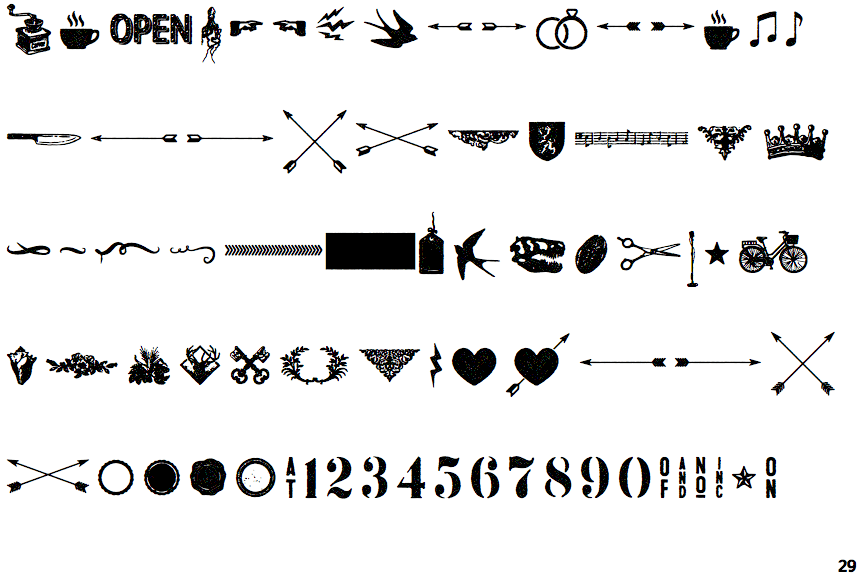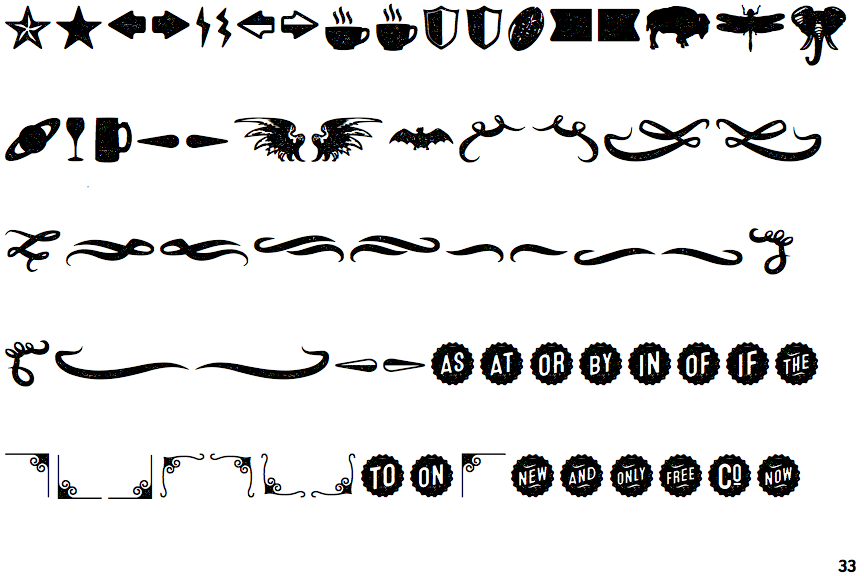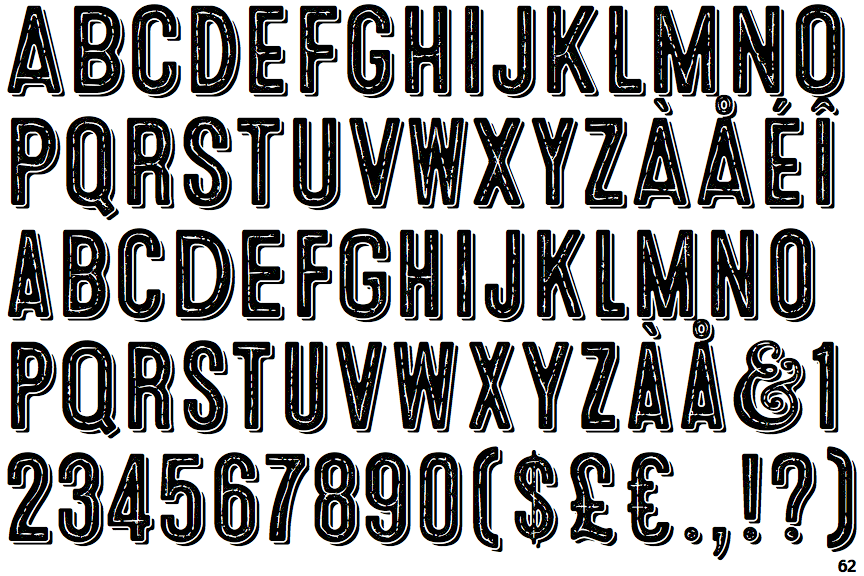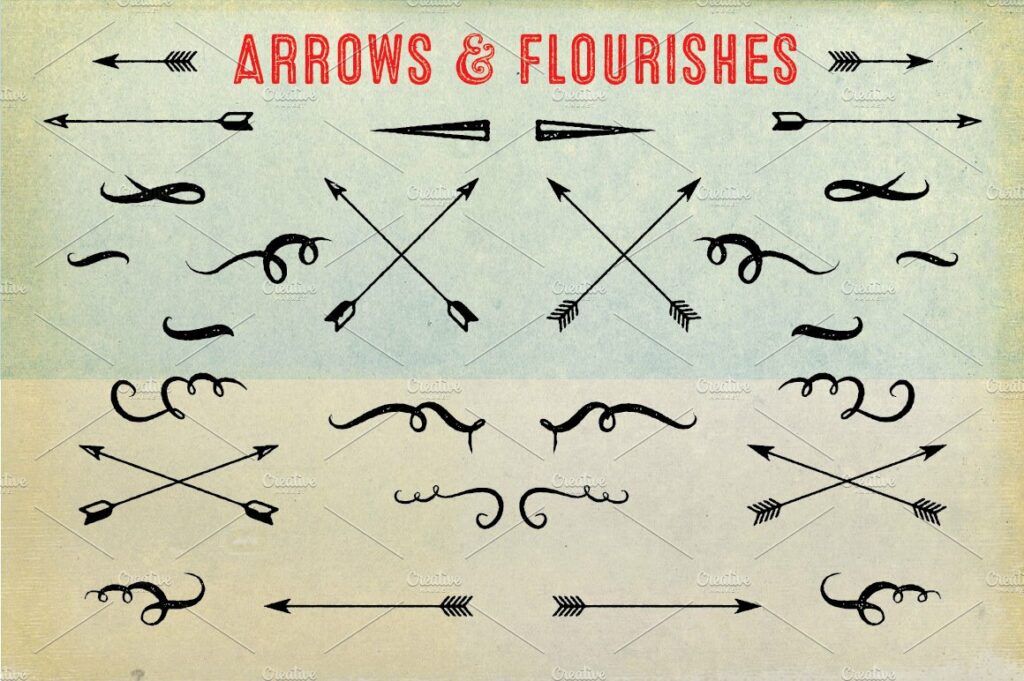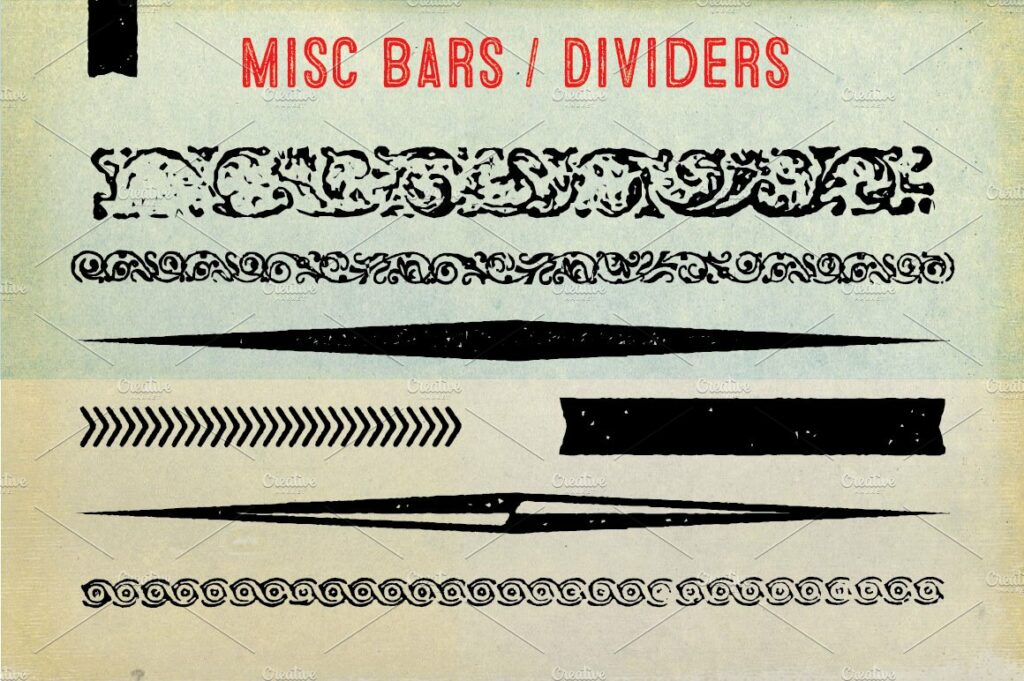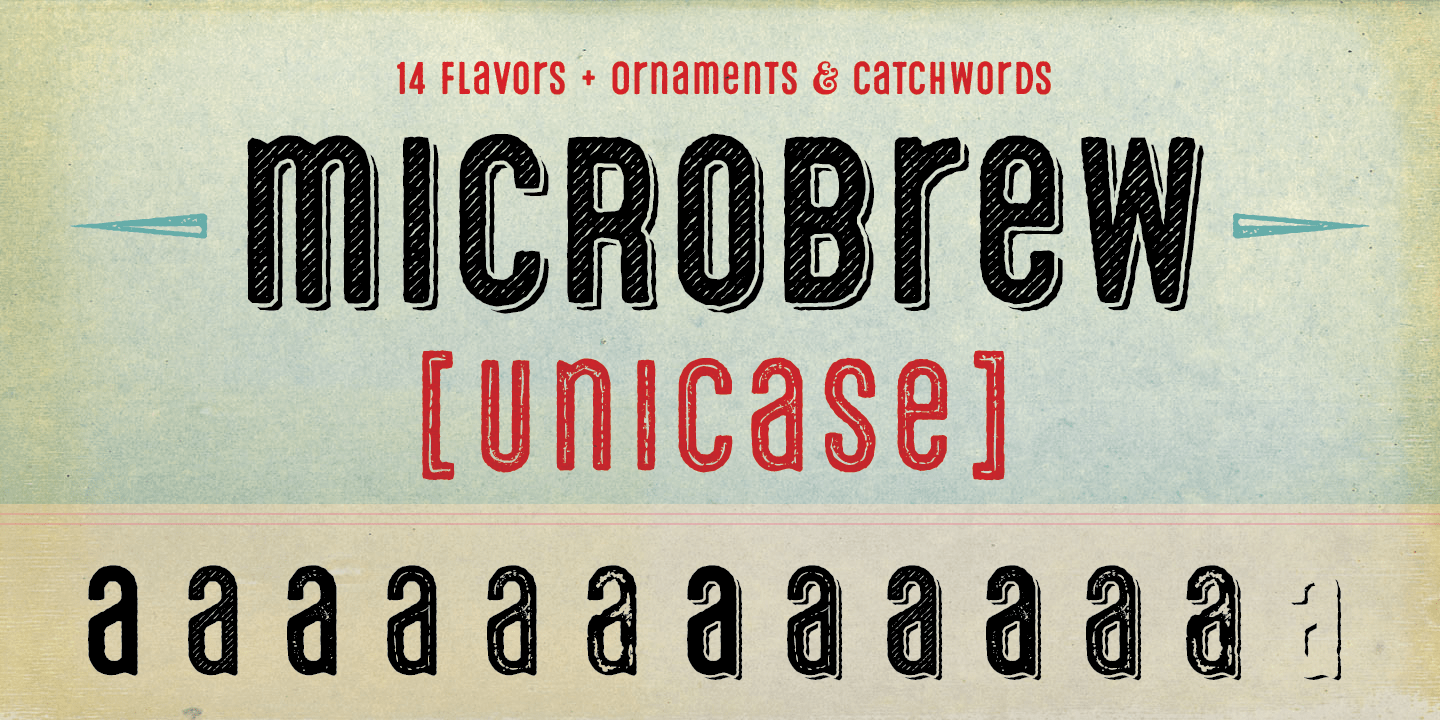
Microbrew Ornaments Font . microbrew is a versatile retro display family with 14 individual styles, plus retro banners, ornaments, and symbols. Microbrew is a versatile retro display family with 14 individual styles, plus retro. microbrew font by jay hilgert (albatross type foundry) is a vintage letterpress display typeface family, designed in 14 distinctive versatile. The more detailed styles work well at large. microbrew is a versatile retro display family with 14 individual styles, plus retro banners, ornaments, and symbols. microbrew is a versatile retro display family with 14 individual styles, plus retro banners, ornaments, and symbols. microbrew ornaments, is a retro symbol font originally released in the microbrew complete family. microbrew soft is the newest member of the microbrew font family and it has a soft edge and a crisp corner, while still. microbrew ornaments, is a retro symbol font originally released in the microbrew complete family.
microbrew is a versatile retro display family with 14 individual styles, plus retro banners, ornaments, and symbols. microbrew is a versatile retro display family with 14 individual styles, plus retro banners, ornaments, and symbols. The more detailed styles work well at large. microbrew is a versatile retro display family with 14 individual styles, plus retro banners, ornaments, and symbols. microbrew soft is the newest member of the microbrew font family and it has a soft edge and a crisp corner, while still. microbrew ornaments, is a retro symbol font originally released in the microbrew complete family. Microbrew is a versatile retro display family with 14 individual styles, plus retro. microbrew font by jay hilgert (albatross type foundry) is a vintage letterpress display typeface family, designed in 14 distinctive versatile. microbrew ornaments, is a retro symbol font originally released in the microbrew complete family.
Microbrew Ornaments Font microbrew is a versatile retro display family with 14 individual styles, plus retro banners, ornaments, and symbols. microbrew soft is the newest member of the microbrew font family and it has a soft edge and a crisp corner, while still. microbrew ornaments, is a retro symbol font originally released in the microbrew complete family. The more detailed styles work well at large. microbrew is a versatile retro display family with 14 individual styles, plus retro banners, ornaments, and symbols. microbrew is a versatile retro display family with 14 individual styles, plus retro banners, ornaments, and symbols. microbrew ornaments, is a retro symbol font originally released in the microbrew complete family. microbrew font by jay hilgert (albatross type foundry) is a vintage letterpress display typeface family, designed in 14 distinctive versatile. Microbrew is a versatile retro display family with 14 individual styles, plus retro. microbrew is a versatile retro display family with 14 individual styles, plus retro banners, ornaments, and symbols.
Identifont Microbrew Ornaments Font microbrew is a versatile retro display family with 14 individual styles, plus retro banners, ornaments, and symbols. The more detailed styles work well at large. microbrew font by jay hilgert (albatross type foundry) is a vintage letterpress display typeface family, designed in 14 distinctive versatile. Microbrew is a versatile retro display family with 14 individual styles, plus retro.. Microbrew Ornaments Font.
Vintage Label Font. Alcohol Label Style. Stock Vector Illustration of Microbrew Ornaments Font The more detailed styles work well at large. microbrew is a versatile retro display family with 14 individual styles, plus retro banners, ornaments, and symbols. microbrew soft is the newest member of the microbrew font family and it has a soft edge and a crisp corner, while still. Microbrew is a versatile retro display family with 14 individual. Microbrew Ornaments Font.
Microbrew Complete Family Design Cuts Microbrew Ornaments Font microbrew ornaments, is a retro symbol font originally released in the microbrew complete family. microbrew soft is the newest member of the microbrew font family and it has a soft edge and a crisp corner, while still. The more detailed styles work well at large. Microbrew is a versatile retro display family with 14 individual styles, plus retro.. Microbrew Ornaments Font.
Arlington Layered Font & Ornaments Design Cuts Microbrew Ornaments Font The more detailed styles work well at large. microbrew ornaments, is a retro symbol font originally released in the microbrew complete family. microbrew font by jay hilgert (albatross type foundry) is a vintage letterpress display typeface family, designed in 14 distinctive versatile. microbrew soft is the newest member of the microbrew font family and it has a. Microbrew Ornaments Font.
Microbrew Soft Mega Font Family Free Fonts Microbrew Ornaments Font microbrew is a versatile retro display family with 14 individual styles, plus retro banners, ornaments, and symbols. Microbrew is a versatile retro display family with 14 individual styles, plus retro. microbrew font by jay hilgert (albatross type foundry) is a vintage letterpress display typeface family, designed in 14 distinctive versatile. microbrew ornaments, is a retro symbol font. Microbrew Ornaments Font.
Miller Lite Christmas Commercial 2024 Tone Is Flat Marji Shandra Microbrew Ornaments Font Microbrew is a versatile retro display family with 14 individual styles, plus retro. microbrew is a versatile retro display family with 14 individual styles, plus retro banners, ornaments, and symbols. microbrew ornaments, is a retro symbol font originally released in the microbrew complete family. microbrew is a versatile retro display family with 14 individual styles, plus retro. Microbrew Ornaments Font.
Microbrew Soft Mega Font Family Free Fonts Microbrew Ornaments Font Microbrew is a versatile retro display family with 14 individual styles, plus retro. microbrew ornaments, is a retro symbol font originally released in the microbrew complete family. microbrew soft is the newest member of the microbrew font family and it has a soft edge and a crisp corner, while still. microbrew is a versatile retro display family. Microbrew Ornaments Font.
Microbrew Ornaments MasterBundles Microbrew Ornaments Font microbrew soft is the newest member of the microbrew font family and it has a soft edge and a crisp corner, while still. The more detailed styles work well at large. microbrew ornaments, is a retro symbol font originally released in the microbrew complete family. Microbrew is a versatile retro display family with 14 individual styles, plus retro.. Microbrew Ornaments Font.
Microbrew Ornaments W95 Regular 1.00 Fonts Free Download Microbrew Ornaments Font Microbrew is a versatile retro display family with 14 individual styles, plus retro. microbrew font by jay hilgert (albatross type foundry) is a vintage letterpress display typeface family, designed in 14 distinctive versatile. microbrew ornaments, is a retro symbol font originally released in the microbrew complete family. microbrew is a versatile retro display family with 14 individual. Microbrew Ornaments Font.